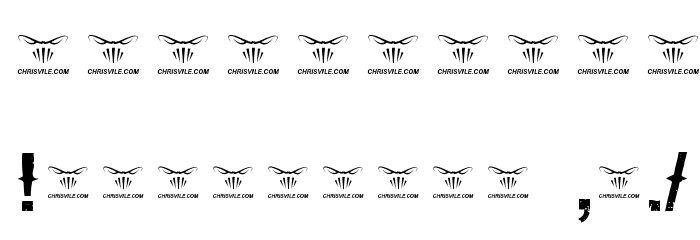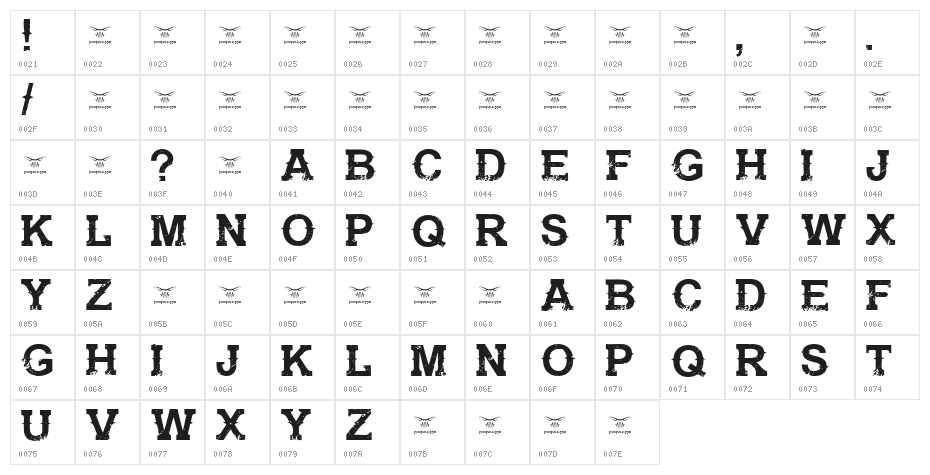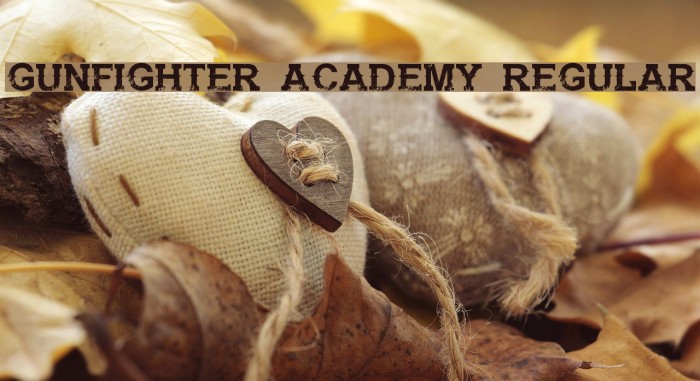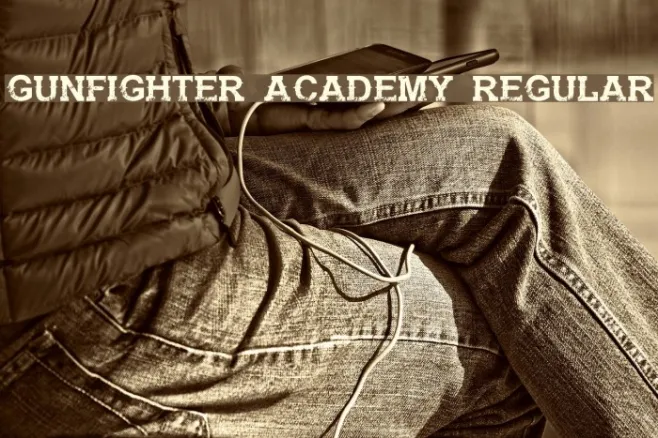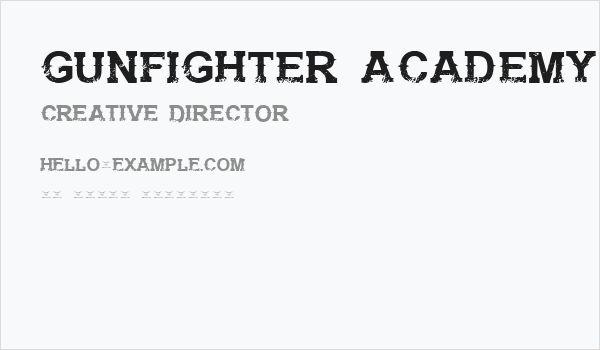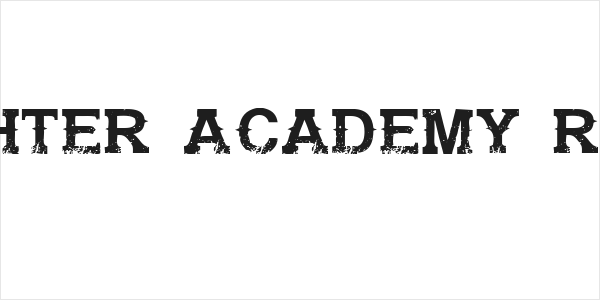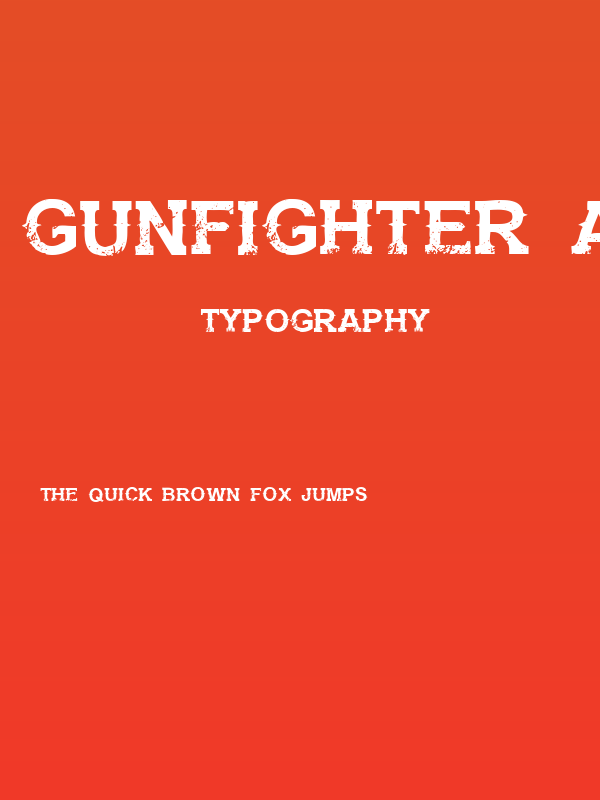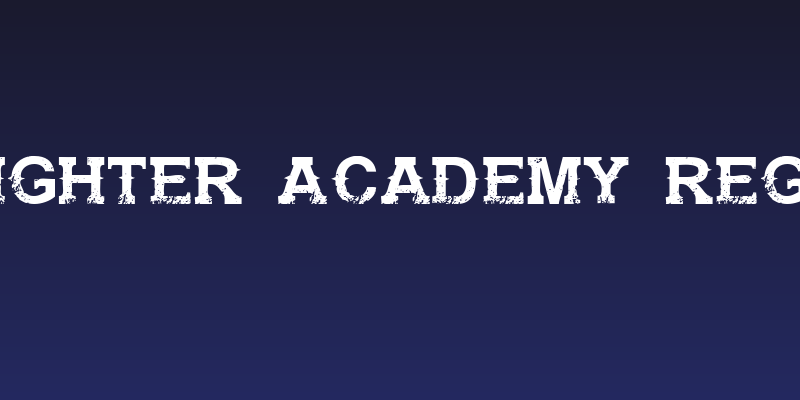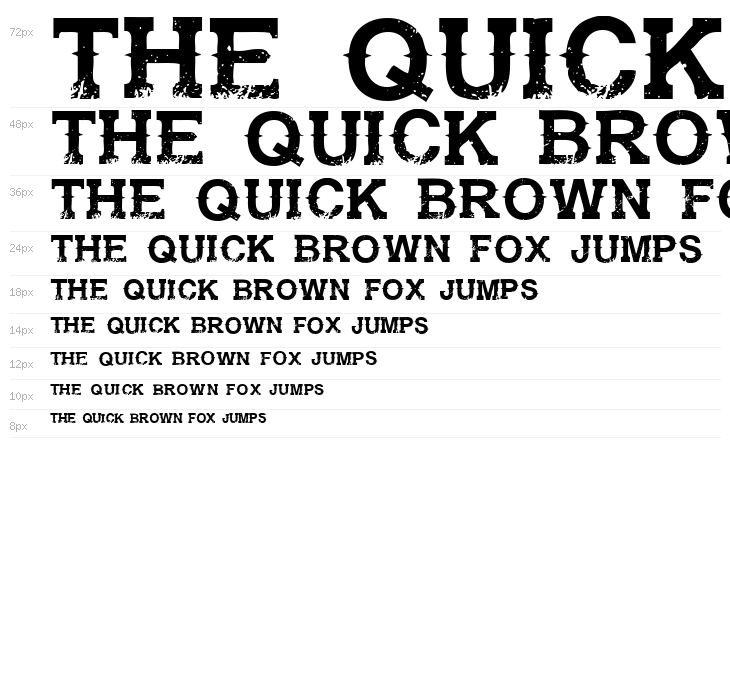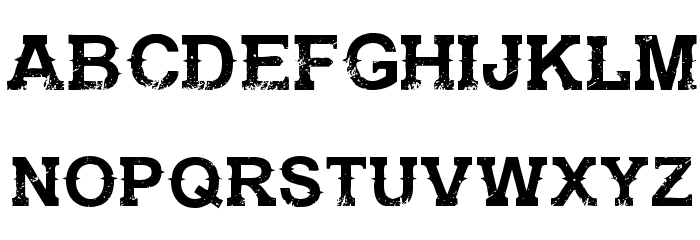
Gunfighter Academy Regular Font
Gunfighter Academy Regular Description
This font features a rugged, distressed style that evokes a sense of the Wild West. The characters are bold and heavily textured, giving them a weathered appearance. This design choice adds a unique, vintage feel that is both eye-catching and memorable. The uppercase letters are particularly striking, with a strong presence that commands attention. The font maintains a consistent weight throughout, ensuring readability despite its decorative elements. The spacing between characters is normal, allowing for clear legibility. This font is ideal for projects that require a bold, adventurous aesthetic.
| Proposed Projects | Perfect for posters, branding, and themed events that require a bold, adventurous look. |